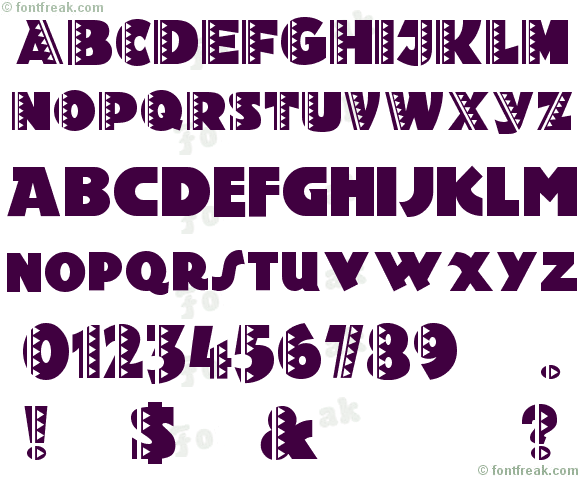
Holy-Ravioli
About Holy Ravioli
Holy Ravioli by Nick Curtis is a striking display font that captures attention with its unique and playful design. This decorative typeface features bold, chunky letterforms that exude a sense of whimsy and fun. The strokes are thick and consistent, creating a robust visual presence, while the carefully crafted details, such as the playful serifs and cut-out elements, add a distinctive flair. The spacing is well-balanced, ensuring readability while maintaining a lively character that draws the eye.
This font is ideal for a variety of creative projects. It works wonderfully for restaurant menus, particularly those aiming for a quirky or informal vibe, as it can evoke warmth and excitement about the dining experience. It also shines in the realm of party invitations, especially for events that celebrate food, fun, or family gatherings. Movie posters would benefit from its boldness, making it an excellent choice for indie films or comedies. Additionally, Holy Ravioli can serve as an engaging title font for social media graphics, helping content creators stand out in a crowded digital space.
The target audience for the Holy Ravioli font includes graphic designers looking for an eye-catching typeface to enhance their projects, as well as small business owners who want to infuse personality into their branding materials. Content creators seeking to add a touch of fun to their visuals will also find this font a valuable resource.
Ultimately, Holy Ravioli stands out due to its unique blend of boldness and playfulness, making it a memorable choice for anyone looking to add a touch of joy to their designs. With the Holy Ravioli font free download, you can easily incorporate this delightful typeface into your next creative endeavor.